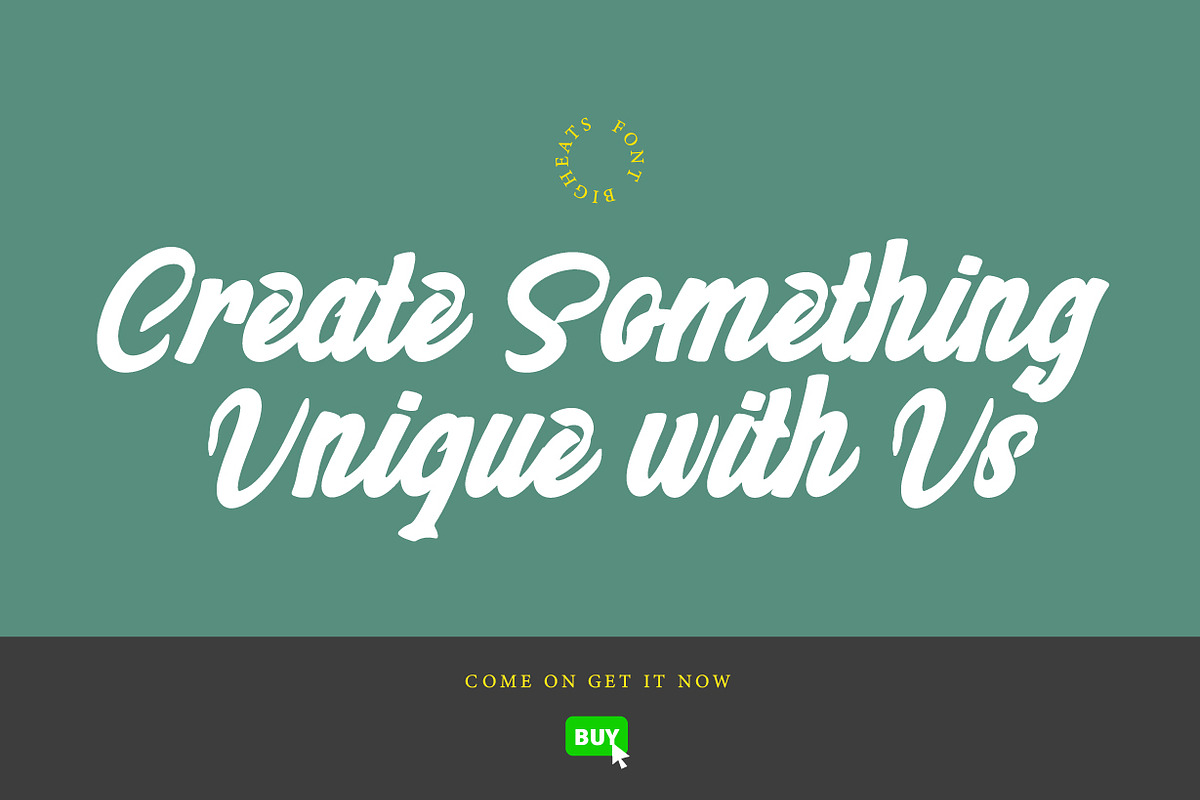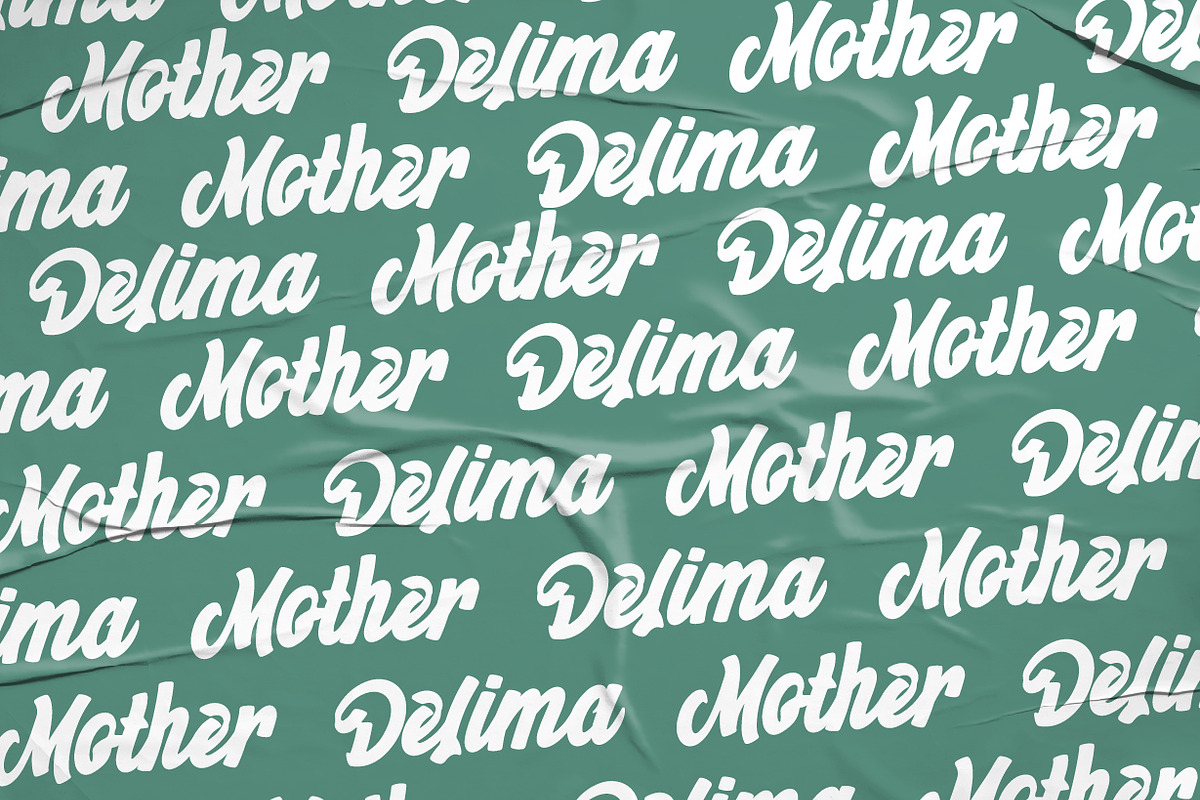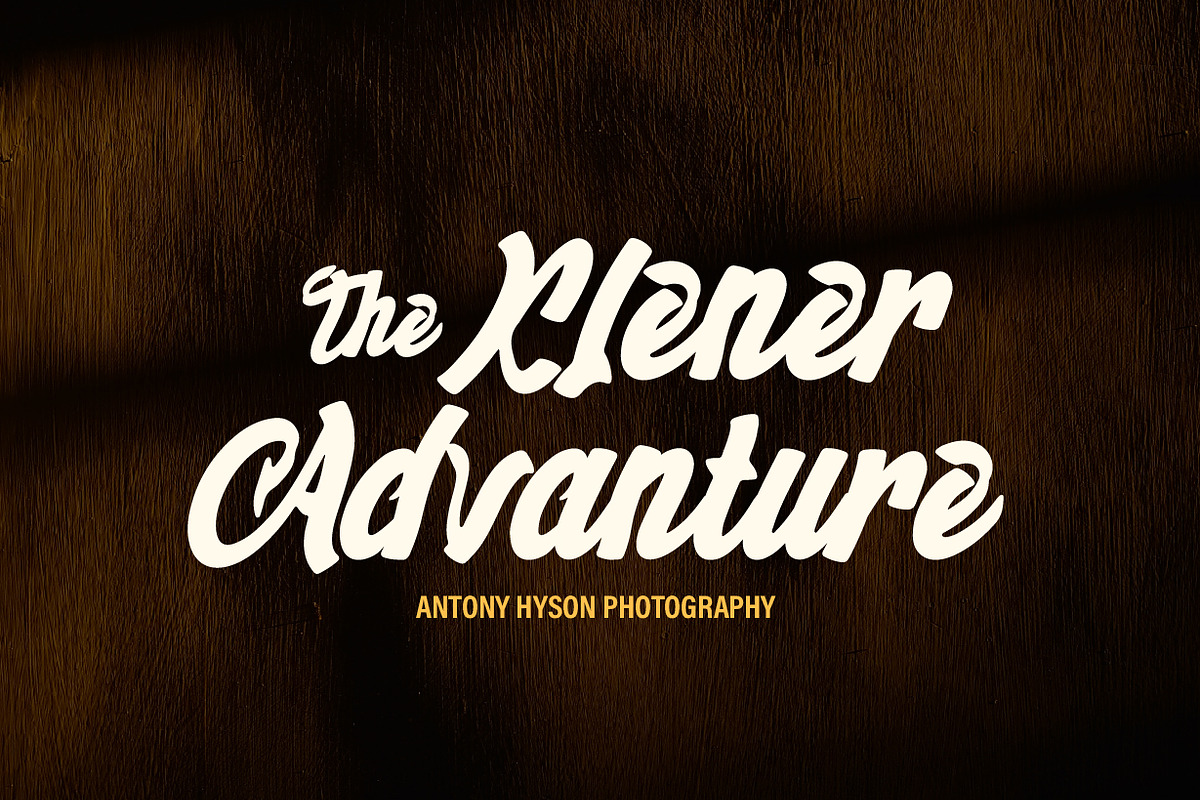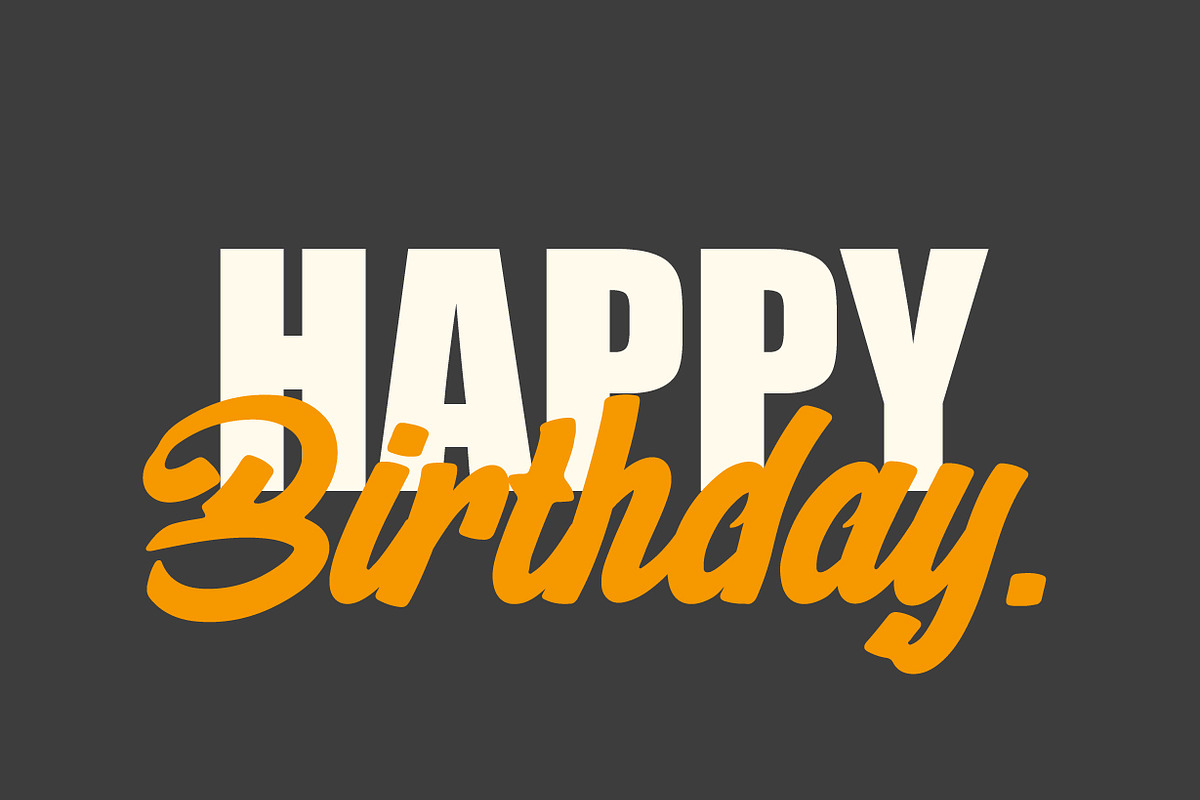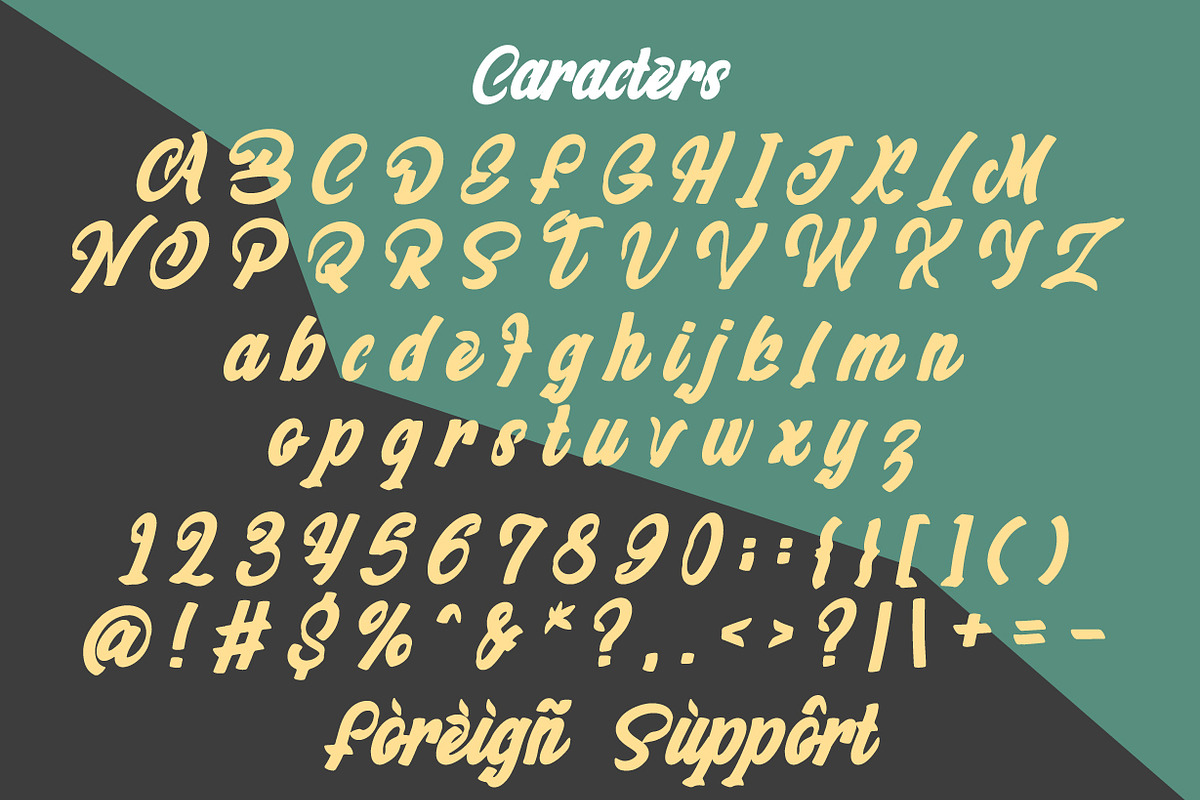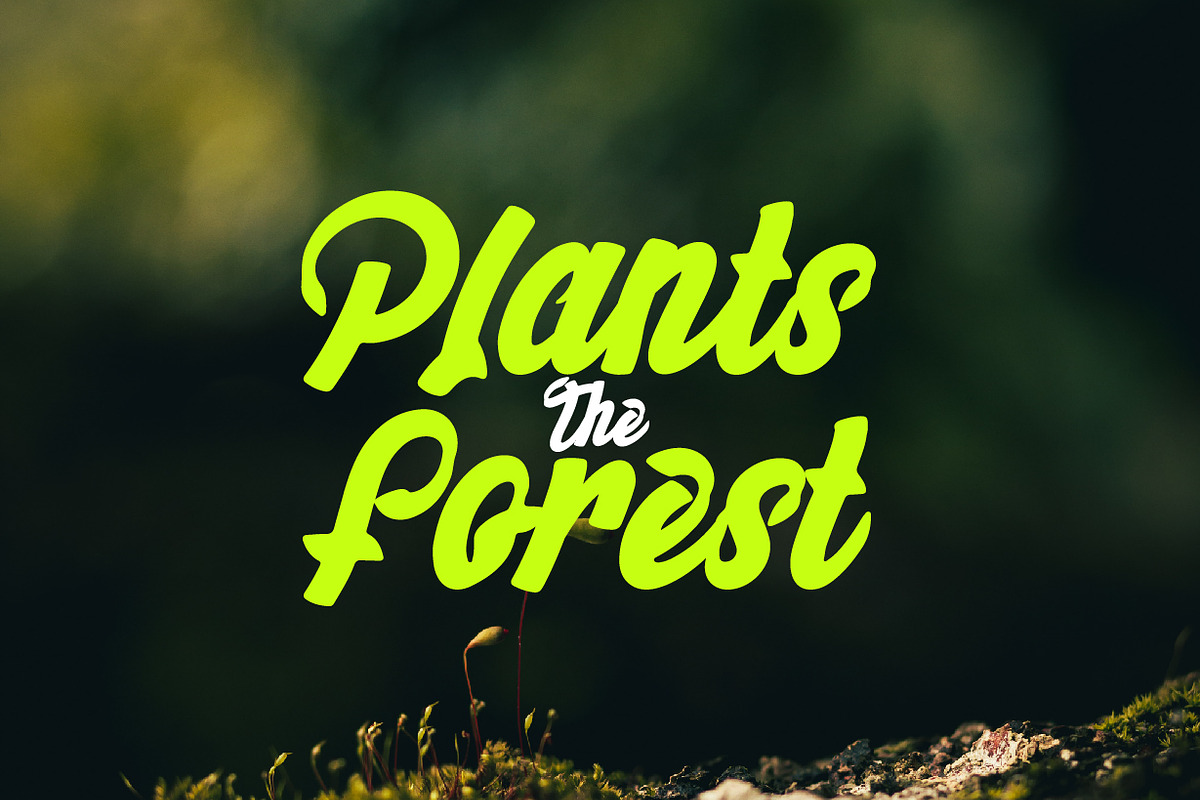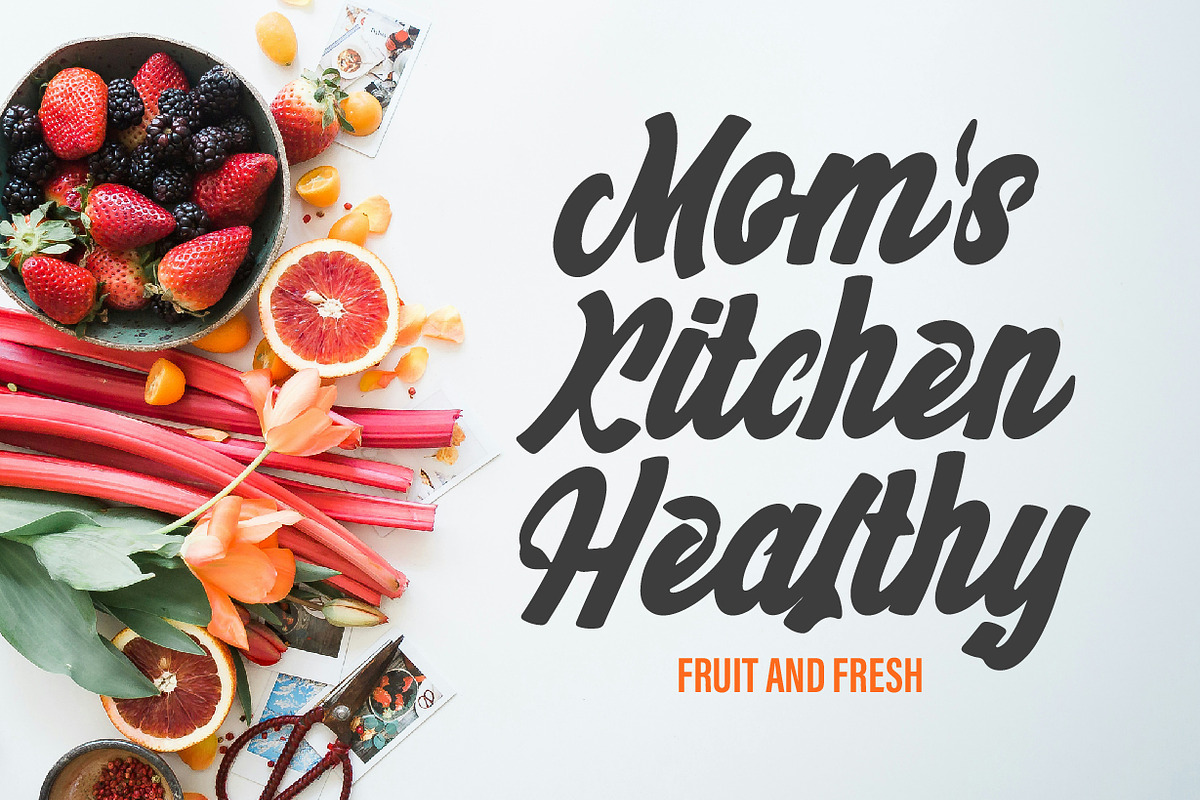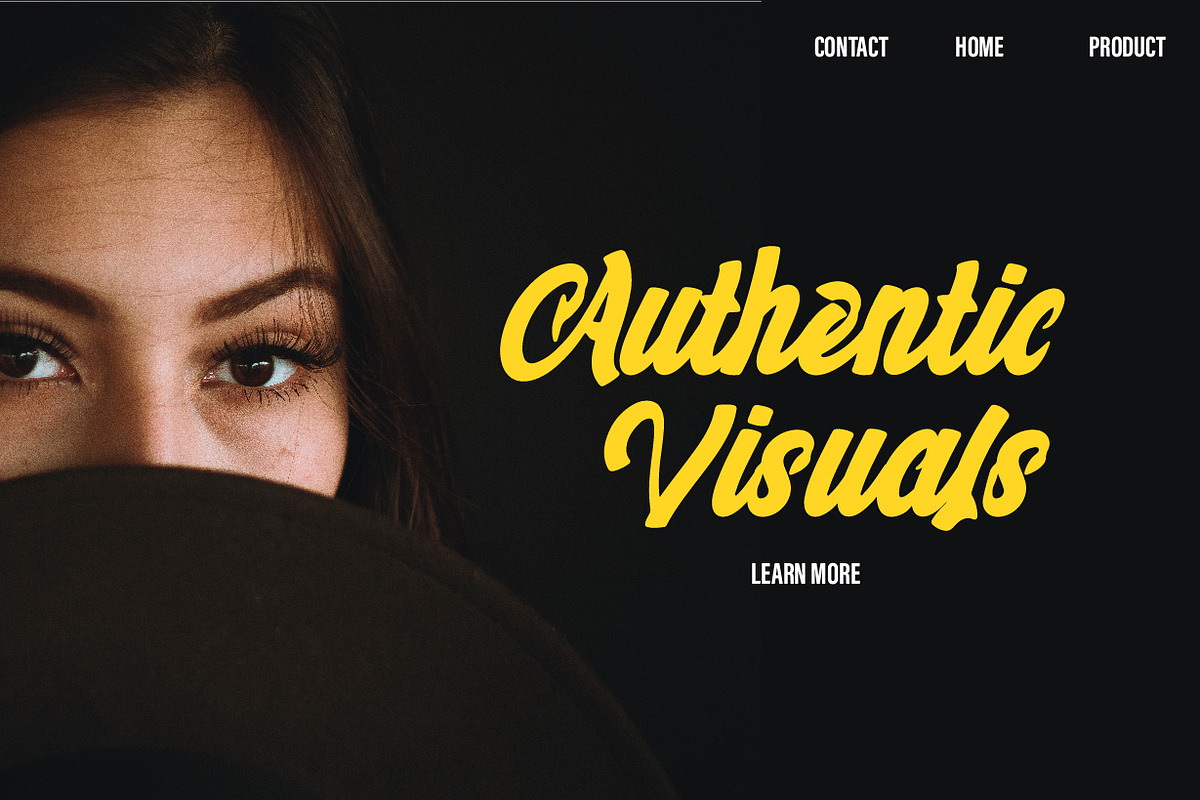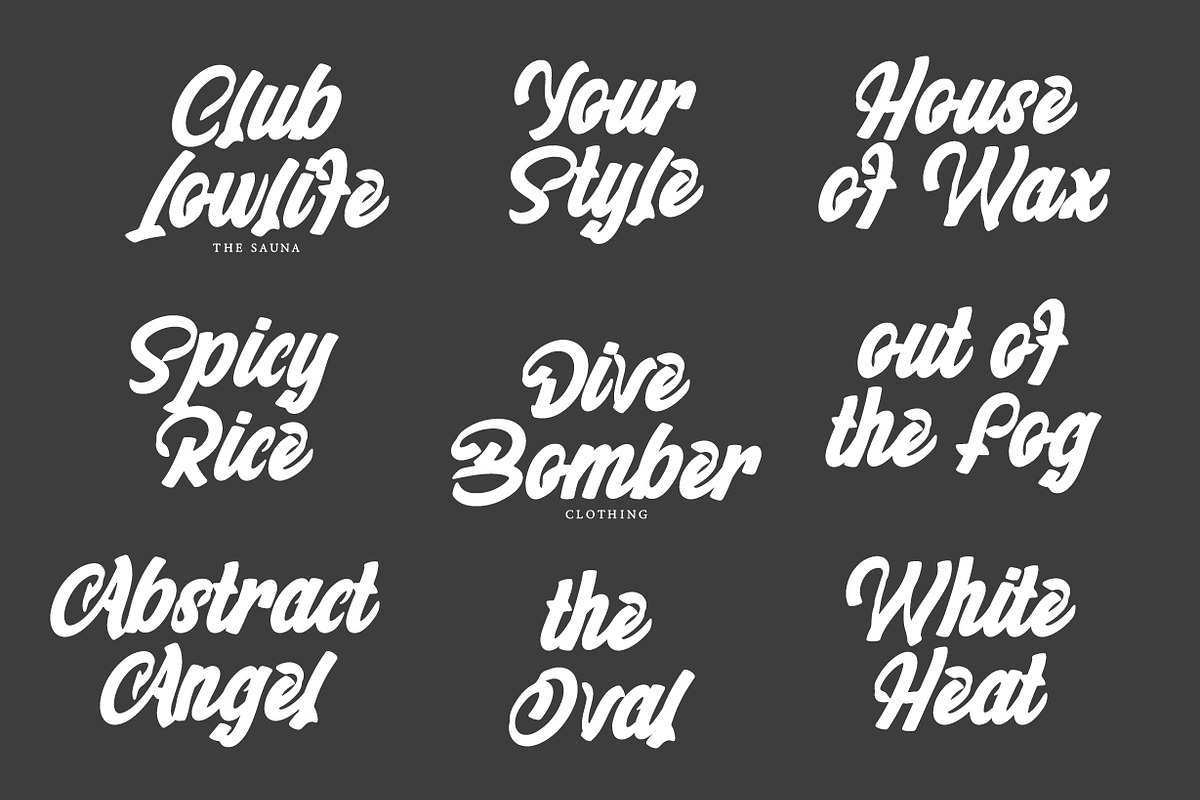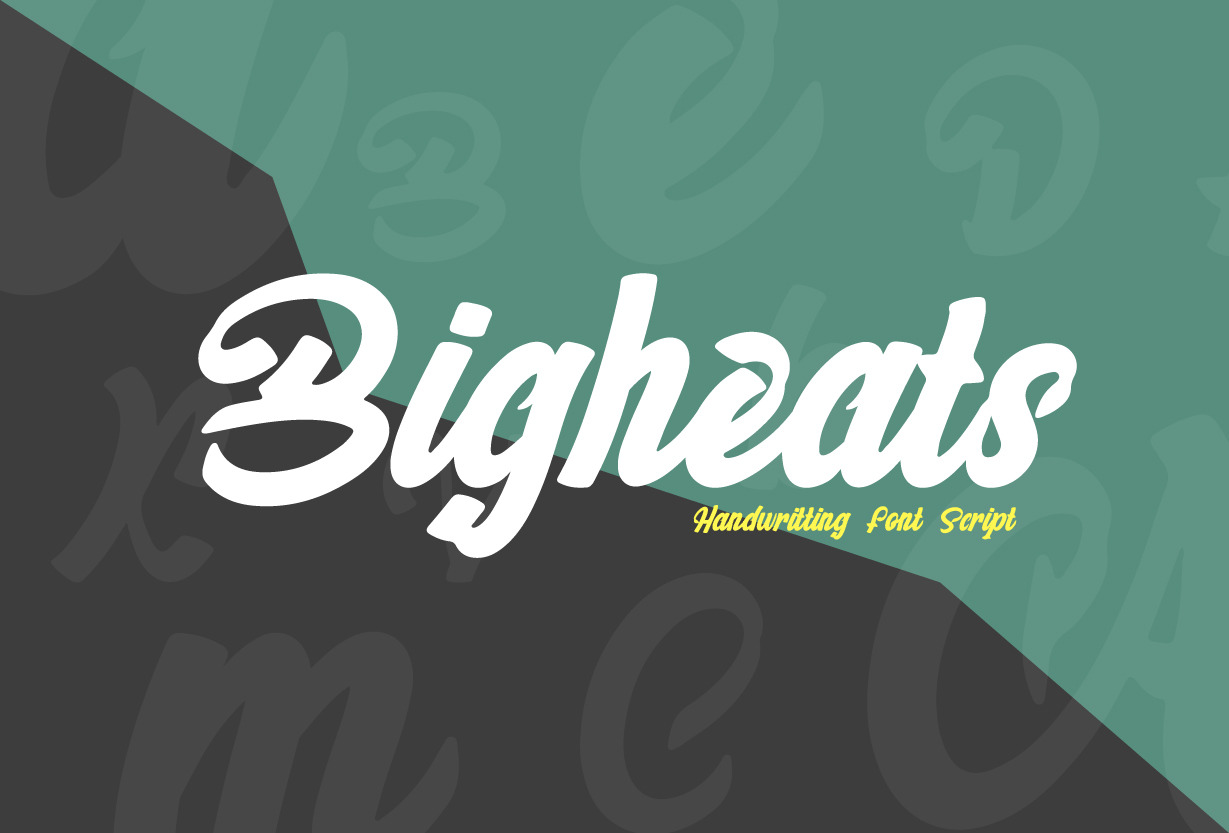
Bigheats - Handwritting Font
Bigheats has a soft and elegant brushstroke, with typography that looks like handwriting. The brushstrokes appear to be produced by fluid and skilled hand movements, giving the font an artistic and handcrafted feel. Medium to large typography sizes will clearly show the details of the brushstrokes. This font is perfect for designs that require a personal and organic touch.
Uppercase, Lowercase, Foreign Language Support, Numbers and Punctuation